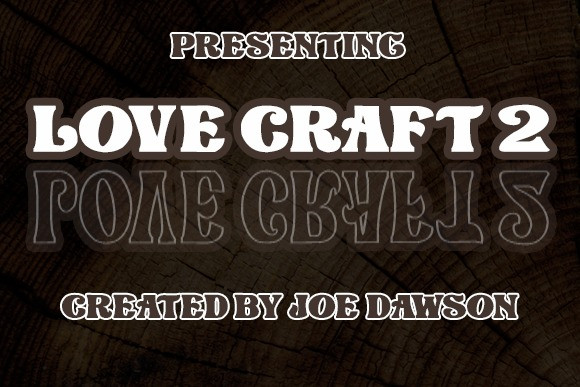
Love Craft 2 Font
Love Craft 2 Display Font
This font is bold, clean, traditional, unique, fun and simple. It’s designed and shared by Joe Dawson. Kharinniswa best uses for heading headlines, cover, poster, logos, quotes, product packaging, merchandise, social media & greeting cards and many more.